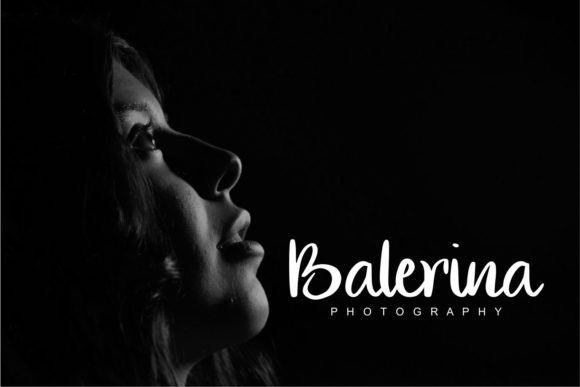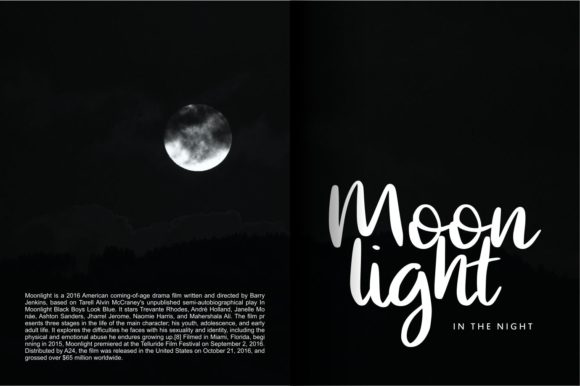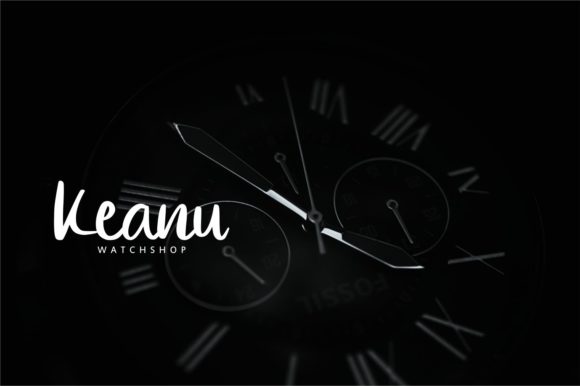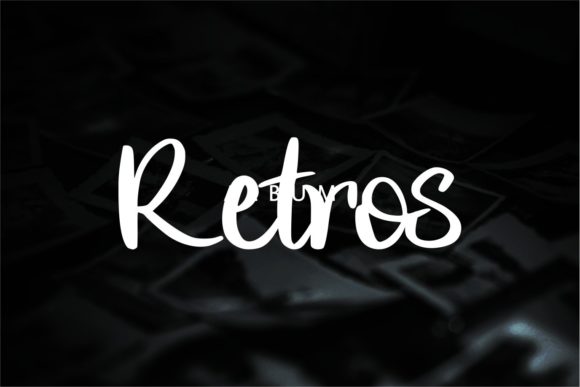
The Power of Typography: How Famous Font Can Elevate Your Design
I still remember the design project that made me fall in love with typography. I was working on a branding campaign for a luxury fashion brand, and I was determined to create something stunning. But, as I scrolled through font after font, I just couldn’t find the right one. That was until I stumbled upon Famous – a script font with a bold feel that instantly caught my eye.
With its elegant strokes and confident vibe, Famous turned my entire design project into a piece of art. I knew right then and there that I had to share this amazing font with fellow designers, crafters, and creative hobbyists. So, let’s dive into what makes Famous so special and how you can make the most of it in your designs.
An Honest Review of Famous Font
What I Love About Famous Font
- ✨ Bold and confident: Famous has a commanding presence that’s perfect for headlines, titles, and statements.
- ✅ Elegant strokes: The font’s smooth, flowing lines add a touch of sophistication to any design.
- 💫 Versatile: Famous works beautifully in a variety of contexts, from luxury branding to creative projects.
While Famous is an exceptional font, there are a few things to keep in mind:
- ⚠️ Legibility at small sizes: Like many script fonts, Famous can be tricky to read at very small sizes. Make sure to test it in different contexts to ensure it works for your project.
- 🤔 Overuse: With a font as beautiful as Famous, it’s easy to overuse it. Balance it with other fonts or use it sparingly to create visual interest.
The Story Behind Famous Font
While the origins of Famous are shrouded in mystery, it’s easy to imagine that it was created by a designer who wanted to make a statement. Perhaps they were inspired by the glamour of old Hollywood or the sophistication of high-end fashion. Whatever the inspiration, Famous is a true masterpiece.
Q: What makes Famous Font so special?
Famous is a unique blend of elegance and confidence. Its bold strokes and sophisticated lines make it perfect for a wide range of design projects.